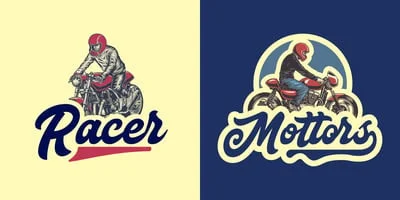
Mattoa Font
The Mattoa Font is perfect for earthy wellness brands, organic product packaging, sustainable lifestyle companies, natural cosmetics labels, eco-friendly restaurant branding, artisan craft materials, botanical garden signage, and environmental conservation campaigns. This grounded typeface works exceptionally well in applications where natural authenticity and organic sophistication need to be emphasized, making it ideal for brands that want to communicate earth-conscious values and sustainable living through naturally inspired typography.
What makes Mattoa Font exciting is its organic earthiness and natural sophistication that captures the essence of sustainable living and environmental harmony. The font's grounded letterforms and nature-inspired character design create an atmosphere of authentic sustainability and ecological wisdom, making it perfect for brands that want to convey environmental responsibility and natural quality. Its earthy presence ensures that every application feels connected to nature with genuine organic appeal and sustainable credibility.
The Mattoa Font family typically includes light, regular, and bold weights, often featuring organic textures, earth-tone variations, and nature-inspired elements that enhance its environmental authenticity. Many versions include botanical motifs, sustainable symbols, and specialized characters that provide designers with comprehensive tools for creating authentic eco-friendly design projects with genuine environmental consciousness and natural aesthetic appeal.
For designers working on projects that require environmental authenticity and sustainable credibility, Mattoa Font provides exceptional organic appeal. Its ability to instantly communicate sustainability and natural quality makes it an invaluable choice for eco-conscious brands, wellness companies, and any project requiring typography that embodies the wisdom of natural living, the beauty of environmental harmony, and the authentic appeal of sustainable lifestyle choices and earth-conscious design.